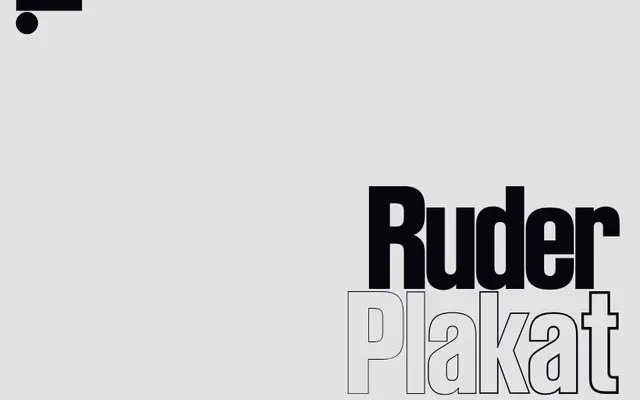
LL Ruder Plakat
Lineto · Hans-Christian Pulver, Arve Båtevik, Anatole Couteau · 2022
LL Ruder Plakat specimen from Lineto
A digital revival of Emil Ruder's wood-type poster font, developed at AGS Basel in the early 1950s and brought to digital form via Hans-Christian Pulver's archival proofs and subsequent reworking at Lineto.
Originally designed by Emil Ruder with students at Allgemeine Gewerbeschule Basel, the typeface's strict grid logic and modular letter construction made it an outlier among contemporary poster types. Hans-Christian Pulver, who trained under Ruder himself, digitised and refined the face in his late seventies from proofs he had made before the school's printshop closed in 2001. At Lineto, Arve Båtevik and Anatole Couteau expanded the character set and introduced a variable version, with Ruder Plakat Maxi added as a companion.
A digital revival of Emil Ruder's wood-type poster font, characterised by strict modularity, grid-based construction and an absence of calligraphic influence; it functions primarily as a display face for large-scale use.